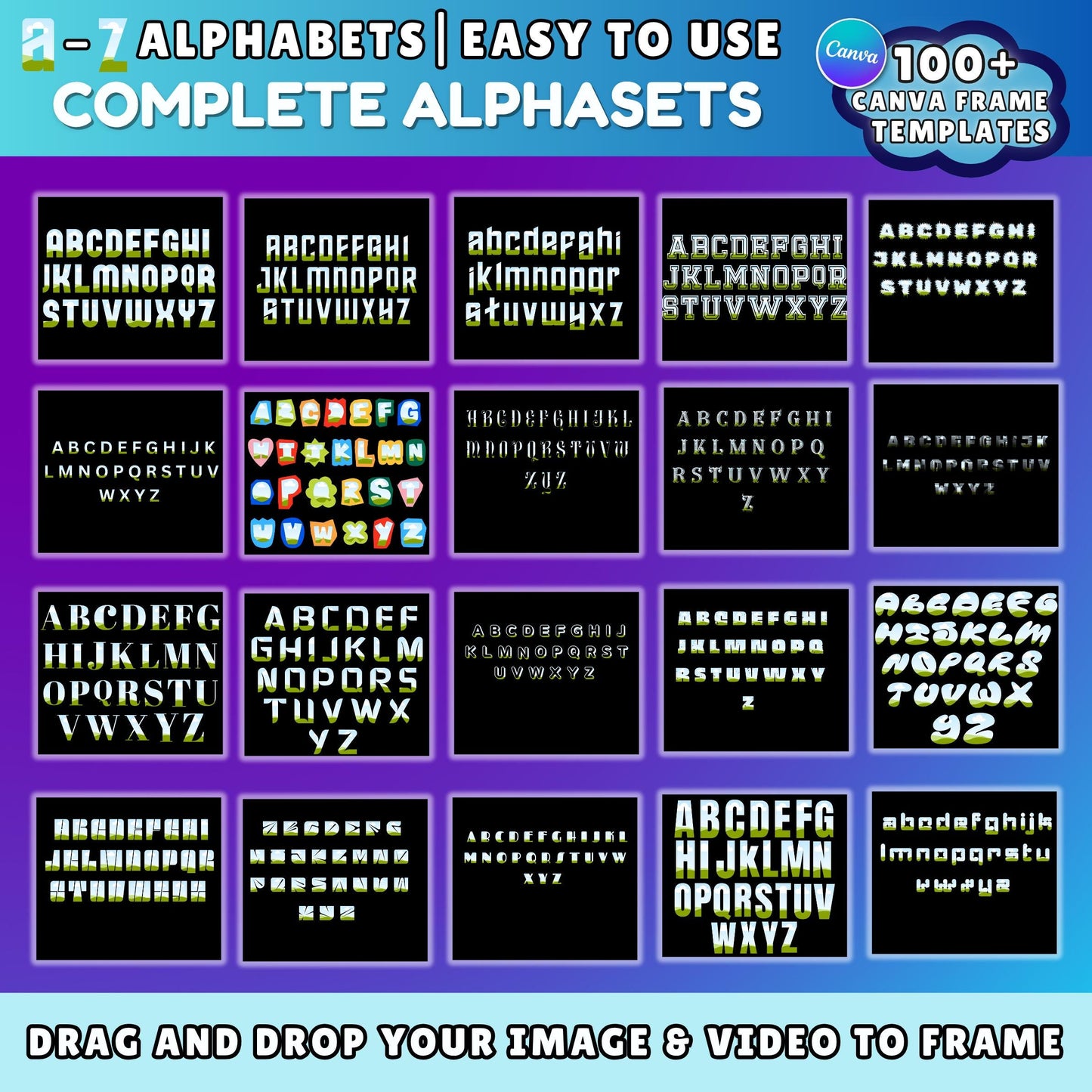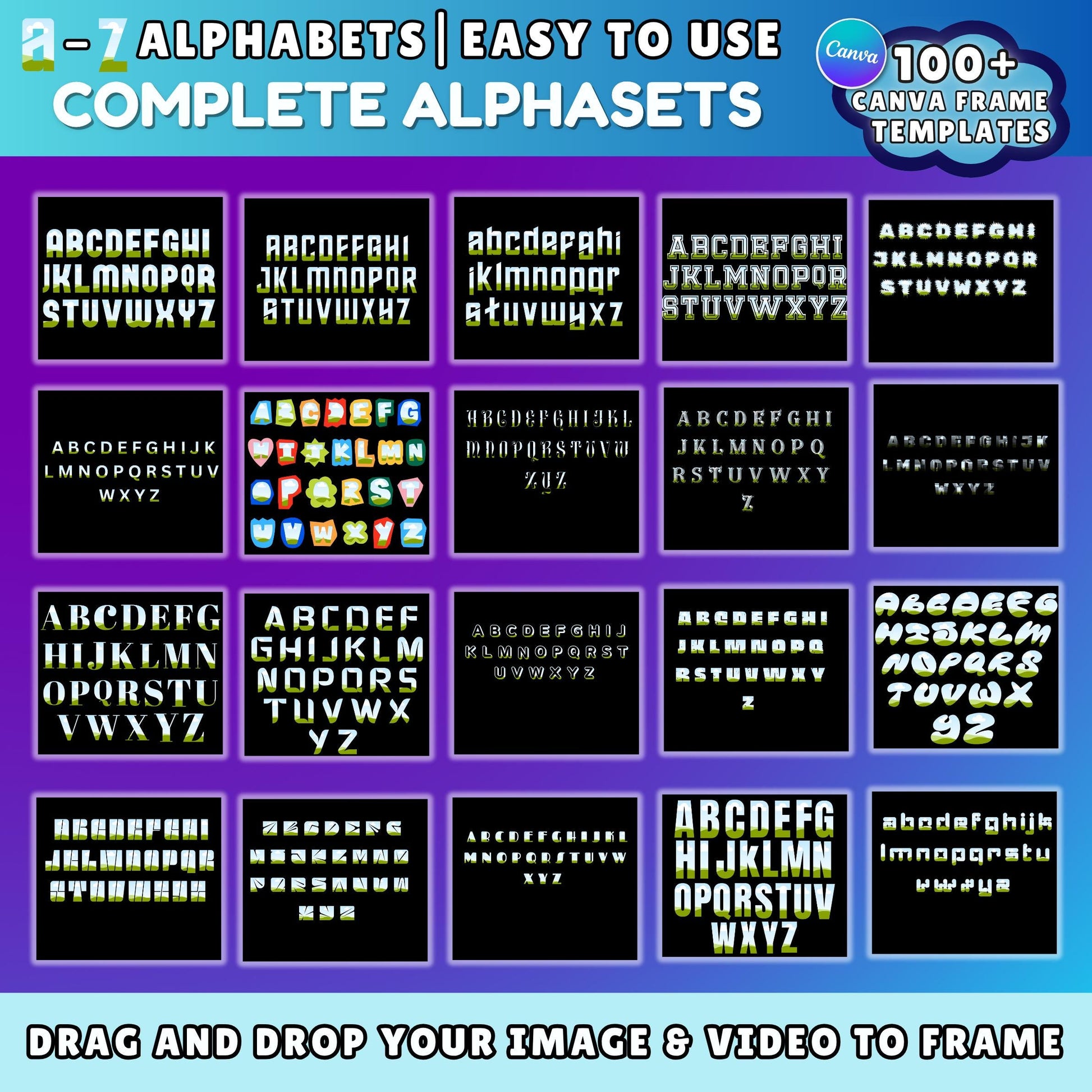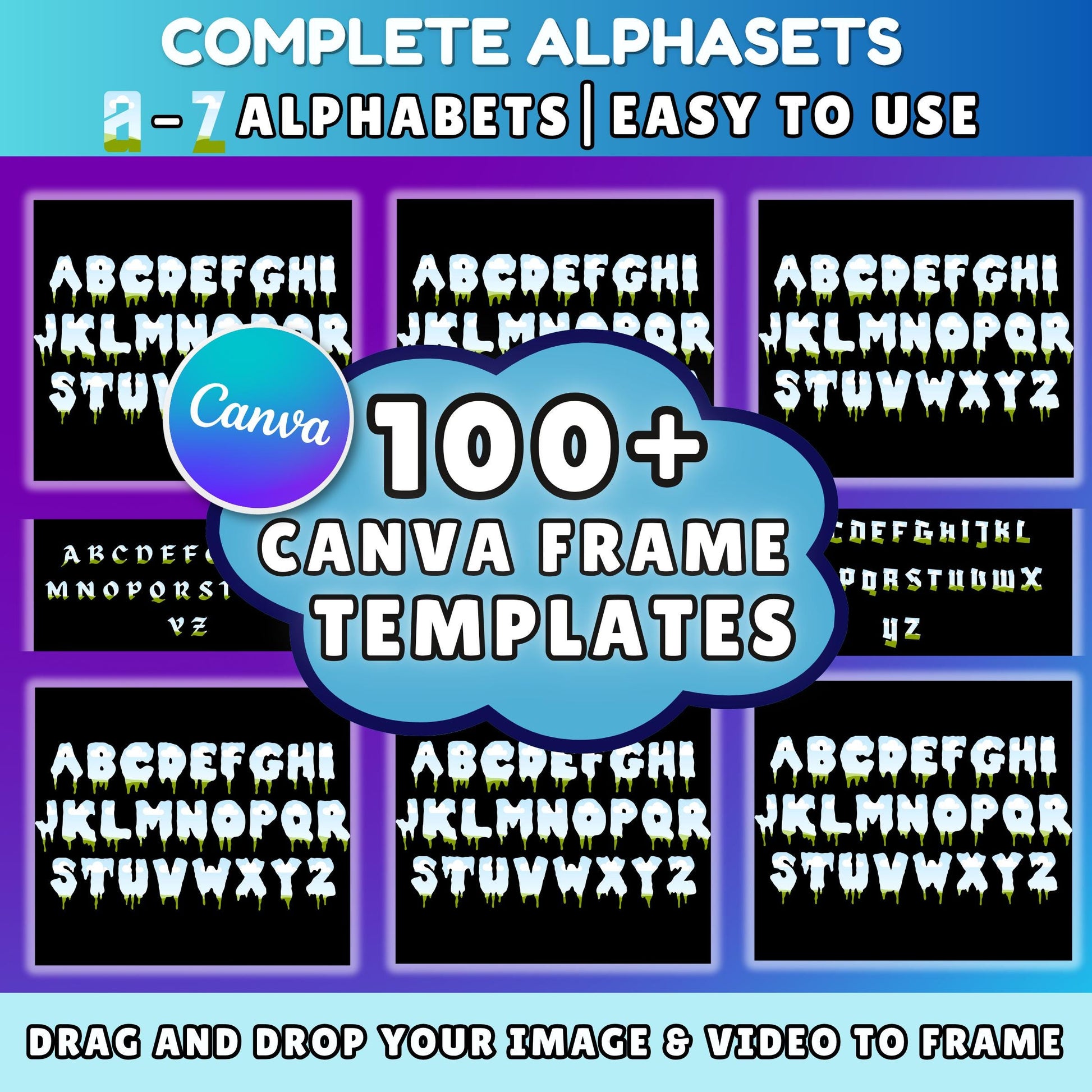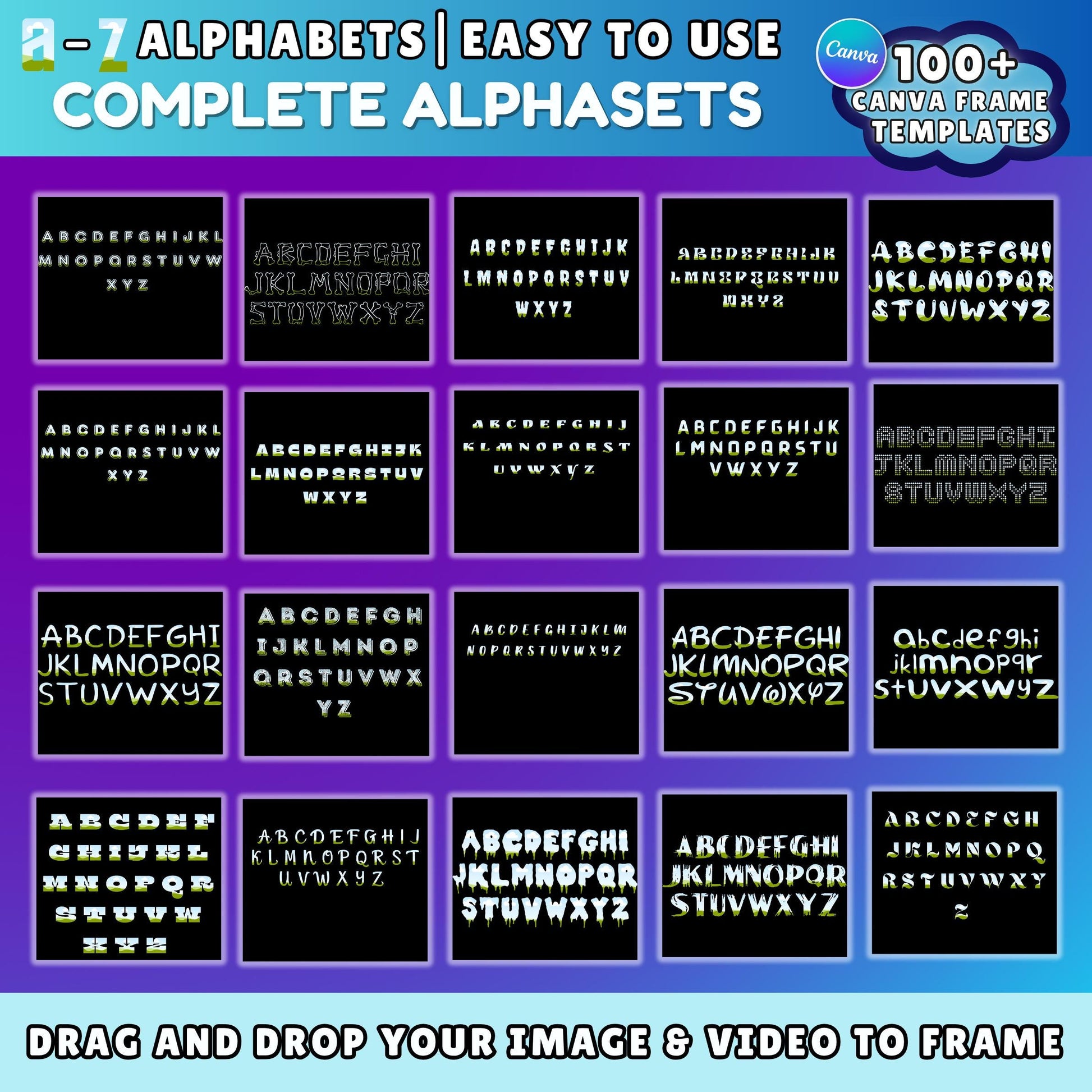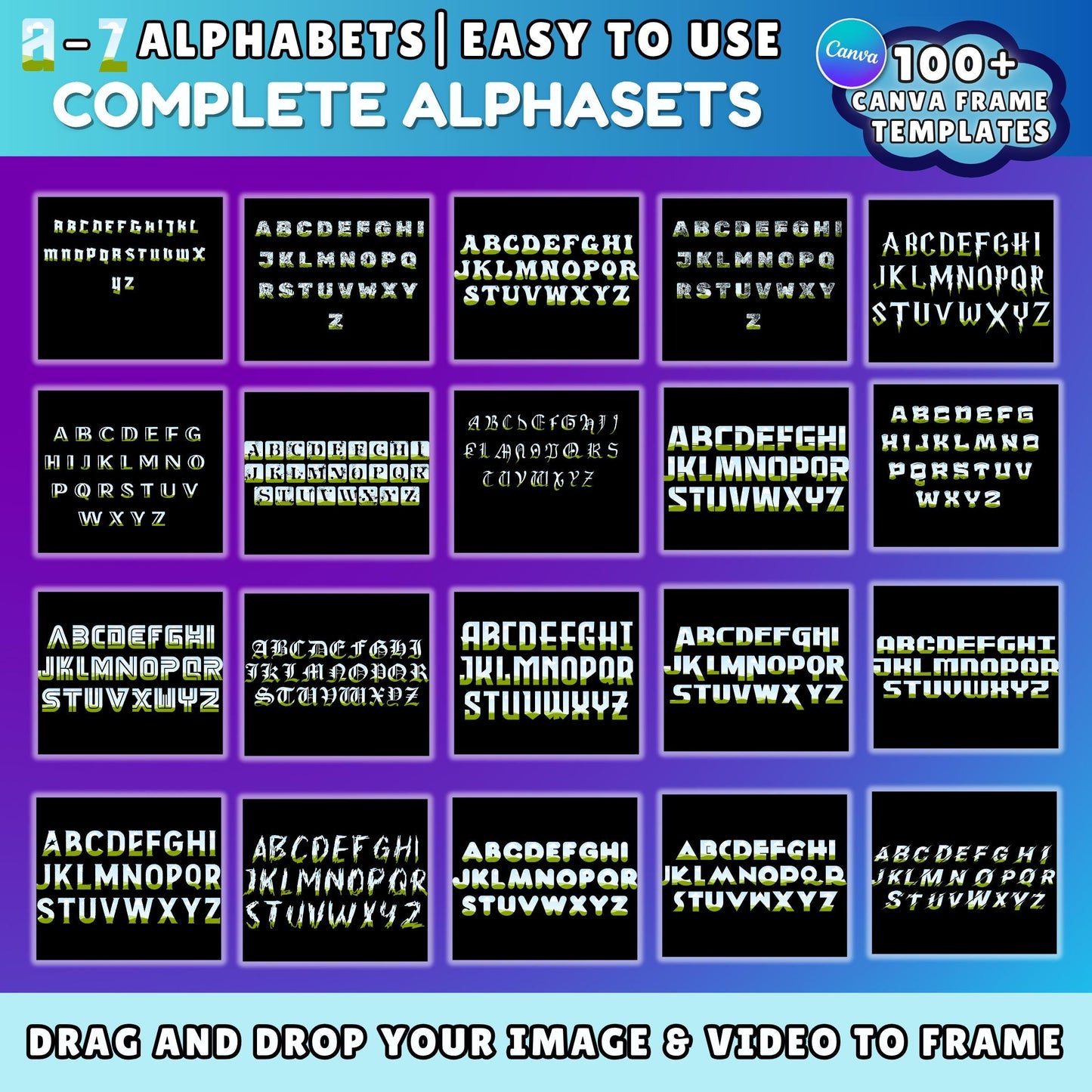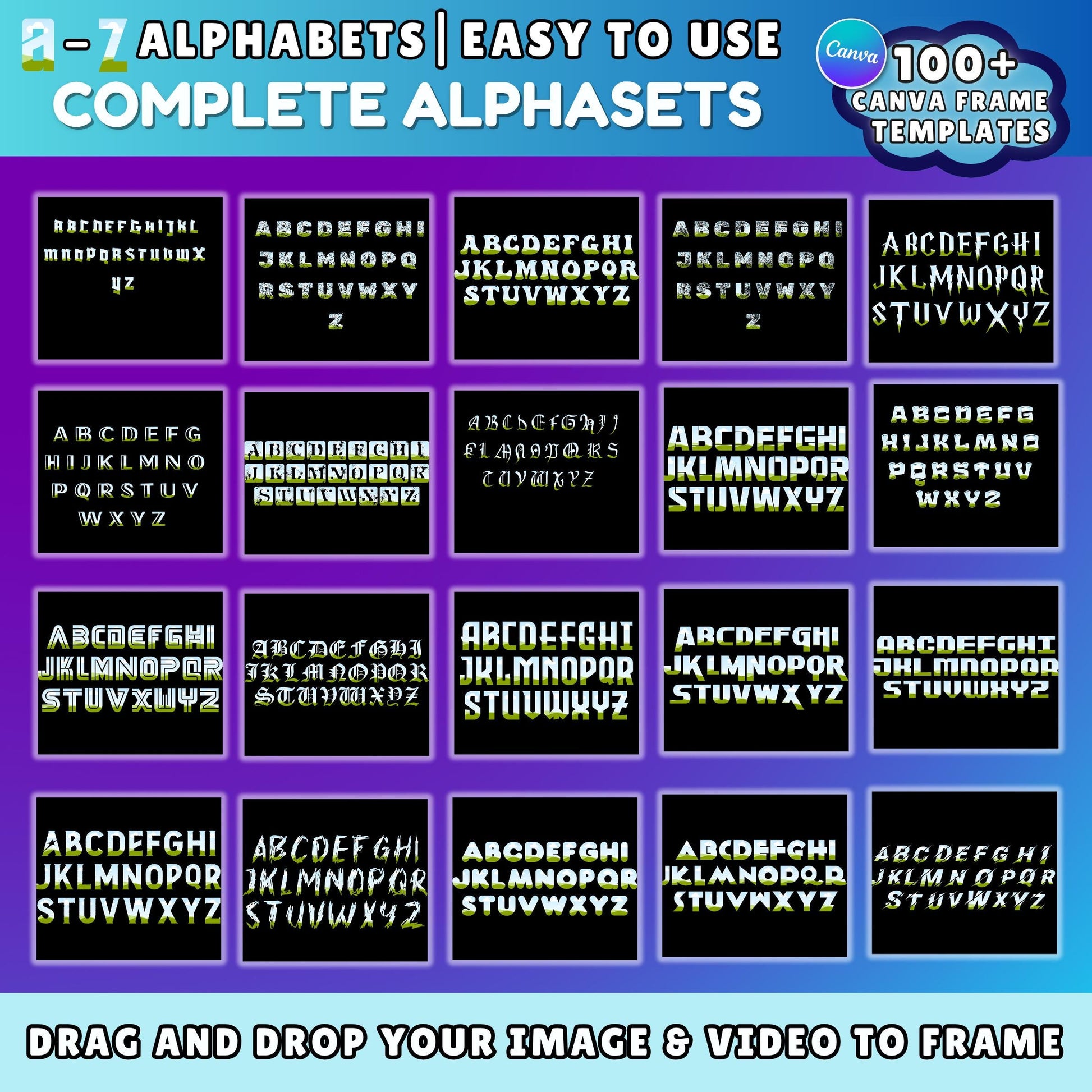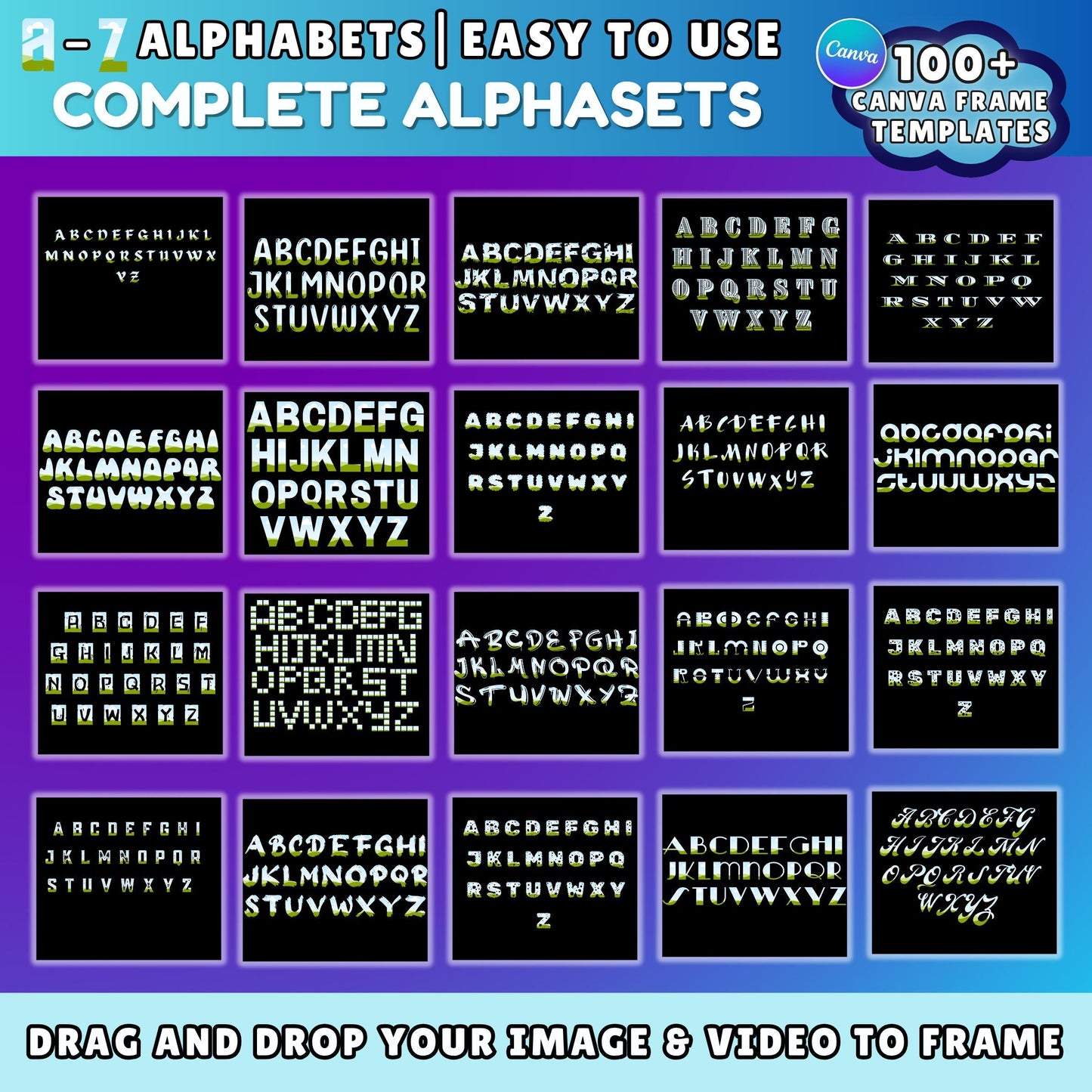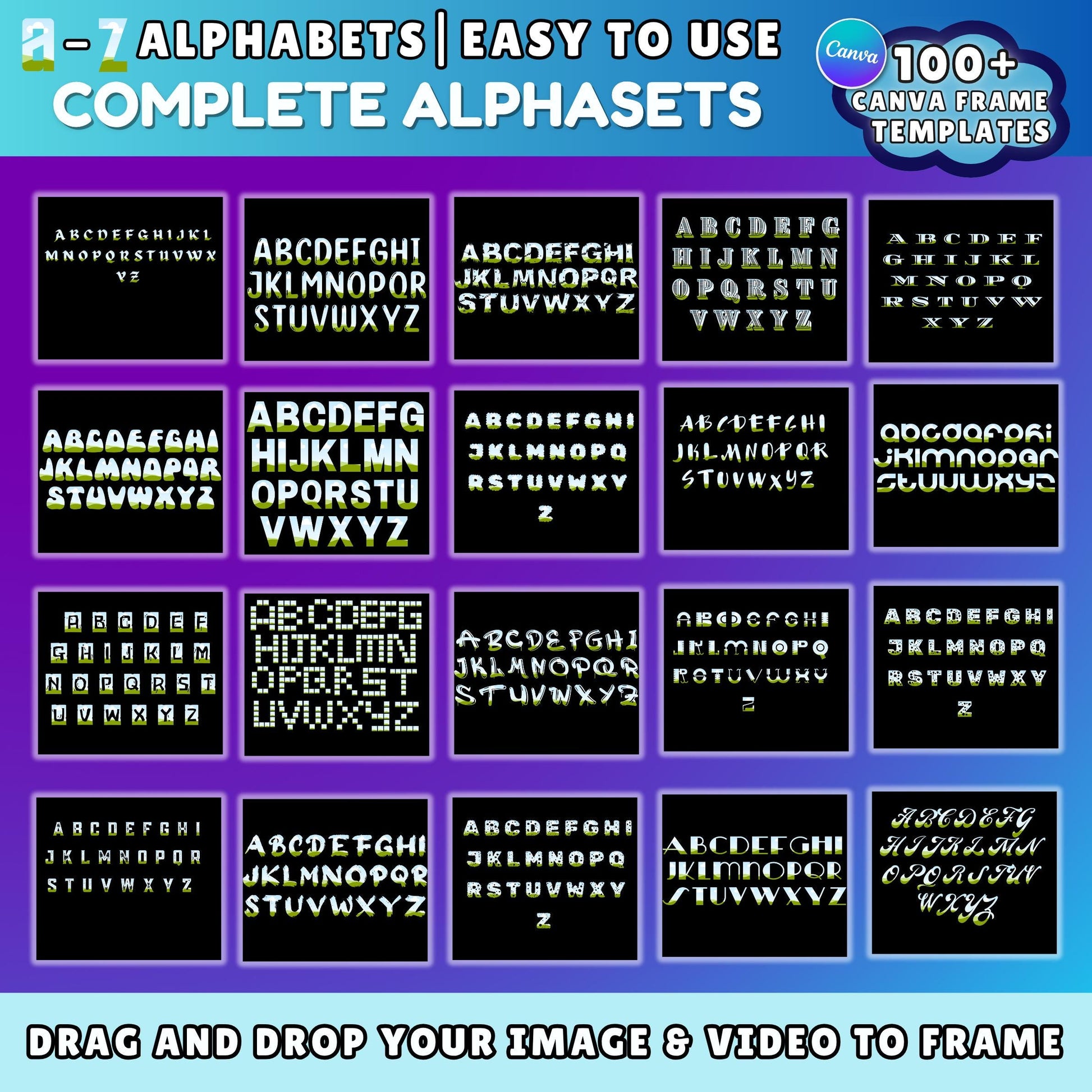
Canva Alphabet Frame Templates | 100+ A-Z Letter Frames | Drag & Drop Photo Letters | Editable Canva Font Frames for Mugs, Shirts and Prints
### ✨ 100+ Canva Alphabet Frame Templates – A–Z Editable Letter Designs for Custom Projects
Create eye-catching personalized designs in minutes! This **bundle of 100+ Canva Alphabet Frame Templates** includes full **A–Z uppercase letters** in multiple fun and bold styles — ready for you to drag and drop your favorite images or videos into each letter frame. Whether you're designing custom mugs, shirts, wall prints, or social media graphics, these alphabet frames are the **perfect blend of creativity and convenience**.
* 📁 **100+ Canva letter frames** (A to Z included in each style)
* 🖼️ Multiple unique font styles — spooky, playful, modern, fun
* 🖌️ Easy drag-and-drop photo & video placeholders
With bold, creative fonts and easy-to-use frames, this bundle takes the stress out of custom design. It’s perfect for crafters and creators who want to **make professional-looking alphabet designs quickly and easily** — all inside Canva!